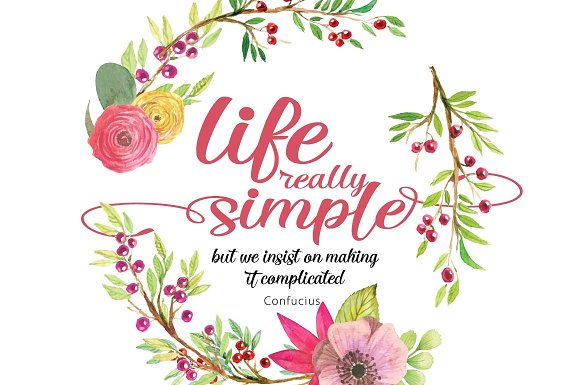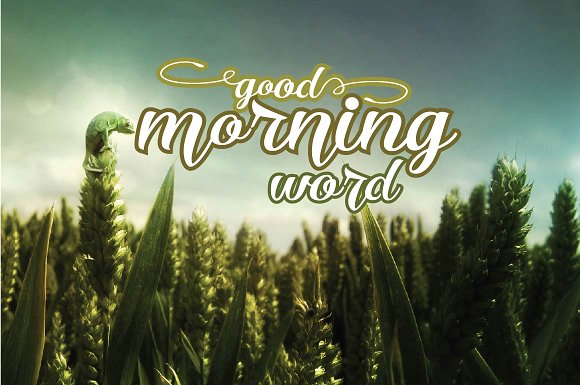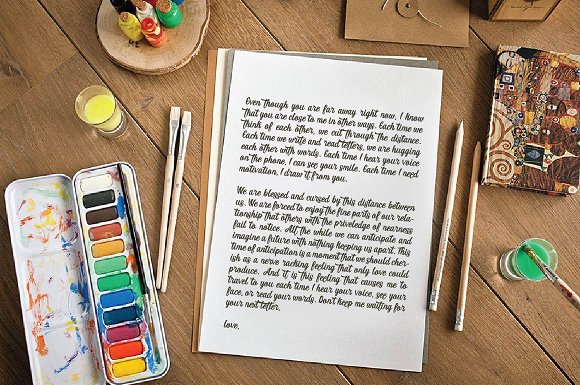
Discovering the Perfect Script: Introduction to Ricca Font
Have you ever been in the middle of a creative project, pouring your heart and soul into a design, only to be held back by the perfect font? For many designers, this is a familiar struggle. But what if we told you that the solution is just a click away? Enter the Ricca Font, a fresh and fluid handwritten font that’s about to revolutionize the way you approach your next design project.
With its transparent background and high-quality design, the Ricca Font is the ultimate design resource for any creative project. Whether you’re working on a branding project, a social media campaign, or a simple blog post, this font is sure to elevate your design to the next level. And the best part? It’s available for free download, making it accessible to designers of all levels and budgets.
Key Features of Ricca Font
- High-quality font with a transparent background, ideal for creative projects requiring design flexibility.
- Features a large character set, including Latin, Cyrillic, and Greek alphabets, as well as a wide range of punctuation marks.
- Unique characteristics include a modern, elegant design and a wide range of font sizes, from 8 to 1000 points.
- Designed to be highly legible and versatile, making it an excellent choice for various creative projects, from typography to graphic design.
Honest Review: Ricca Font
I recently had the chance to work with the Ricca Font, and I must say it’s a great addition to any design resource. The high quality of this font is evident from the start, with a wide range of styles and weights to choose from. It’s perfect for a creative project that requires a modern and elegant touch.
Here are some of the things that work well with the Ricca Font:
- ✨ Beautifully designed characters with a unique touch
- ✨ Excellent legibility, even at small font sizes
- ✨ Works well on both light and dark backgrounds, including transparent backgrounds
- ⚠️ Some users may find the font to be too modern or trendy, which may not be suitable for all design projects
Overall, I’m really impressed with the Ricca Font and would highly recommend it to designers looking for a high-quality, modern font. It’s a great addition to any design resource and is perfect for creative projects that require a unique touch.
Ricca Font
Tips for Getting the Most Out of Ricca Font
Use Ricca Font on a transparent background to create a striking design element. Experiment with different font sizes and colors to find the perfect combination for your project. You can also use Ricca Font in combination with other design resources to create a cohesive look.
Ricca Font is a versatile design resource that can be used in a variety of creative projects, including logos, brochures, and social media graphics. It’s also a great choice for designing presentations, reports, and other business documents.
Alternatives to Ricca Font
Montserrat is a high-quality sans-serif font ideal for creative projects that require a modern and sleek look. It’s available for free download and features a transparent background, making it perfect for use on websites or in graphic design.
Montserrat is similar to Ricca Font in terms of its modern aesthetic, but it’s more versatile and can be used for a wide range of design projects. Use Montserrat when you need a clean and professional font that’s easy to read.